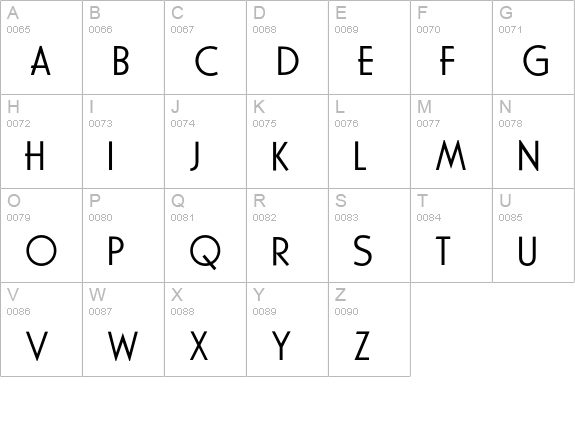
Introducing the exquisite Cassius font, a modern typeface that exudes elegance and sophistication. With its sleek lines and stylish curves, Cassius is perfect for adding a touch of class to any design project. Whether you're creating a logo, website, or branding materials, this versatile font is sure to make a lasting impression. Best of all, Cassius is available for free download at FontsMarket.com. Yes, you read that right - this premium font can be yours at no cost. Don't miss out on the opportunity to elevate your designs with the beauty and refinement of Cassius. Download it today and unlock a world of creative possibilities!